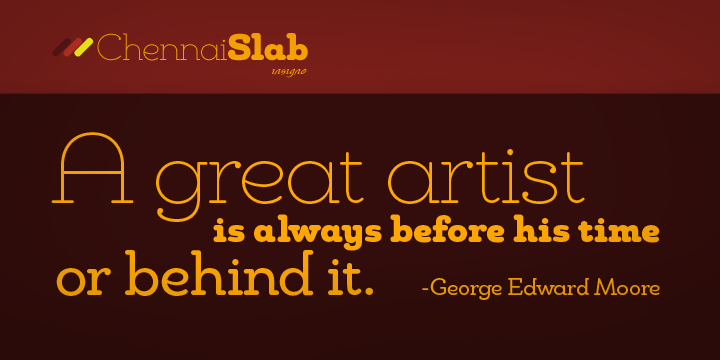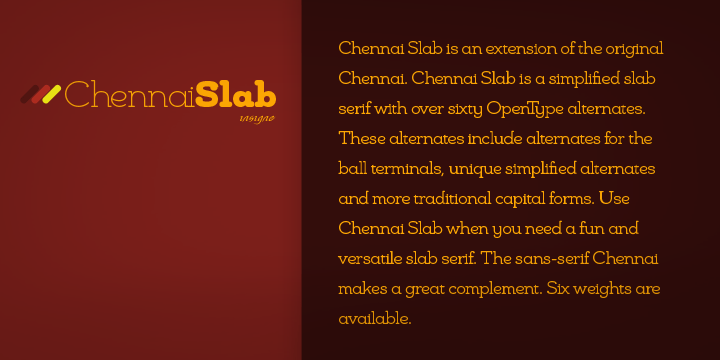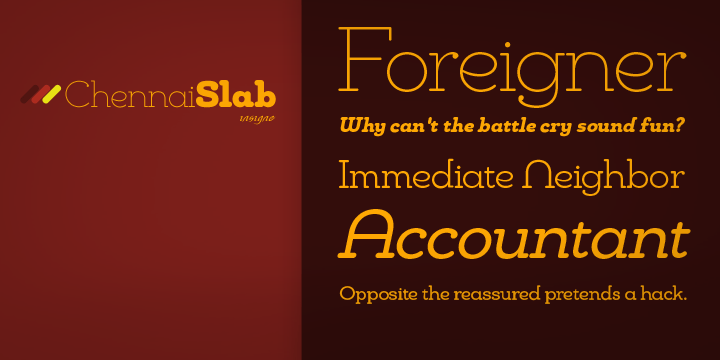
Chennai Slab is a slab serif font family. This typeface has twelve styles and was published by Insigne Design.
Chennai Slab is an extension of the original Chennai. Chennai Slab is a simplified slab serif with over sixty OpenType alternates. These alternates include alternates for the ball terminals, unique simplified alternates and more traditional capital forms. Use Chennai Slab when you need a fun and versatile slab serif. The sans-serif Chennai makes a great complement. Six weights are available.